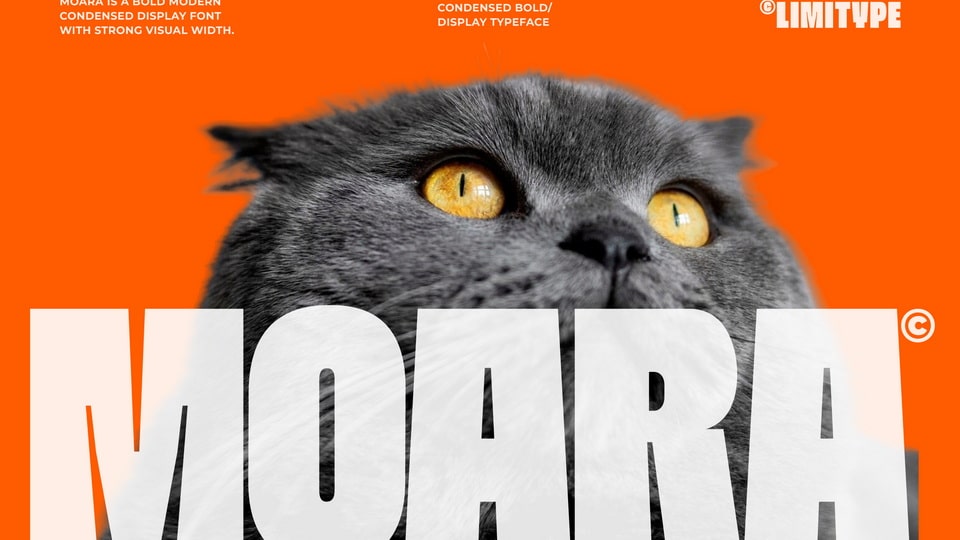
Download Moara font, a modern bold condensed display typeface designed to deliver a strong and impactful visual presence. Its slim yet compact proportions create a clean, contemporary, and highly legible appearance.